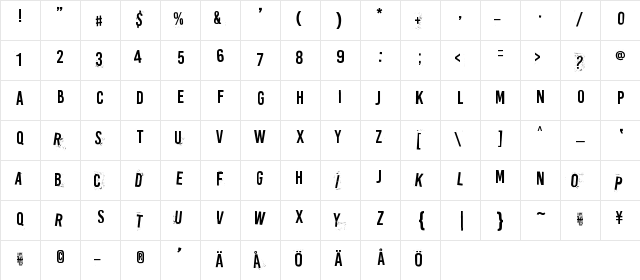
Rip-off Regular
Design Context for Rip-off Typeface
Rip-off is a composed and adaptable typeface that performs quietly and consistently across a wide range of design contexts.